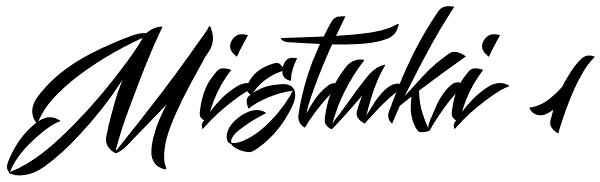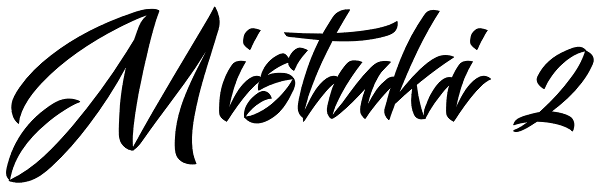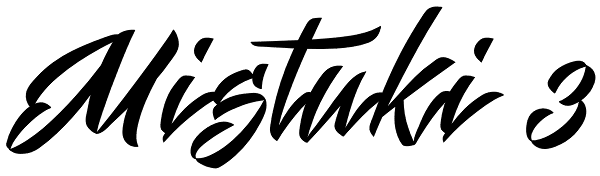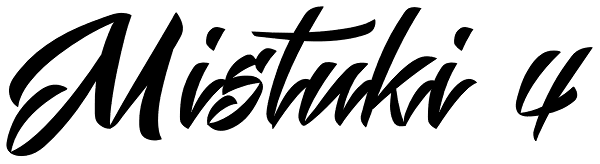
Mistuki
With inspiration from brush strokes, tattoo design and asian typography, Mistuki got two completely different sets of characters, and each of them got both subtle and large sized capital characters. The large capitals are perfect for logotypes and...
Mistuki 1
Mistuki 2
Mistuki 3
Mistuki 4